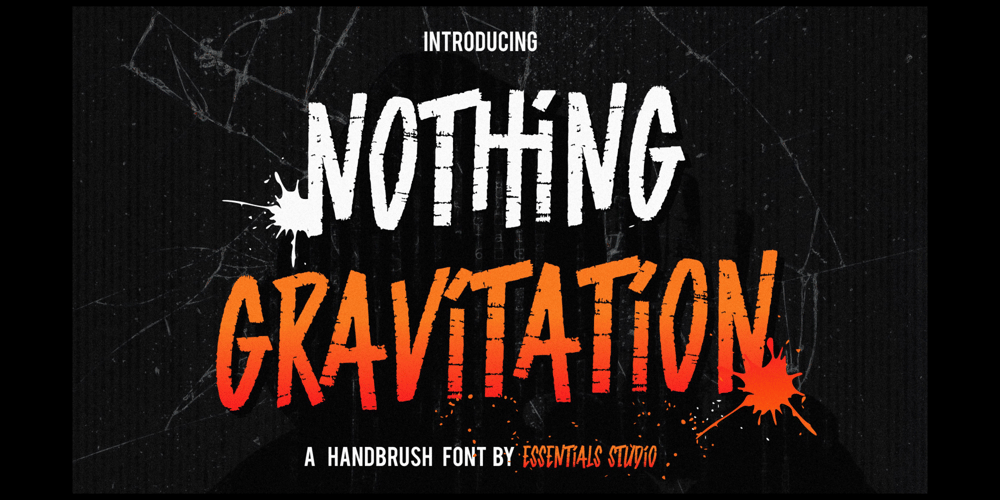
Nothing Gravitations
Nothing Gravitations font
Nothing Gravitations Font Family was designed by Annas Rifky Anhar and published by Essentials Studio. Nothing Gravitations contains 1 styles and family package options. Nothing Gravitation is an urban-style display font. Nothing Gravitation is perfect for product packaging, branding project, magazines, social media, weddings, or just used to express words above the background.–Uppercase